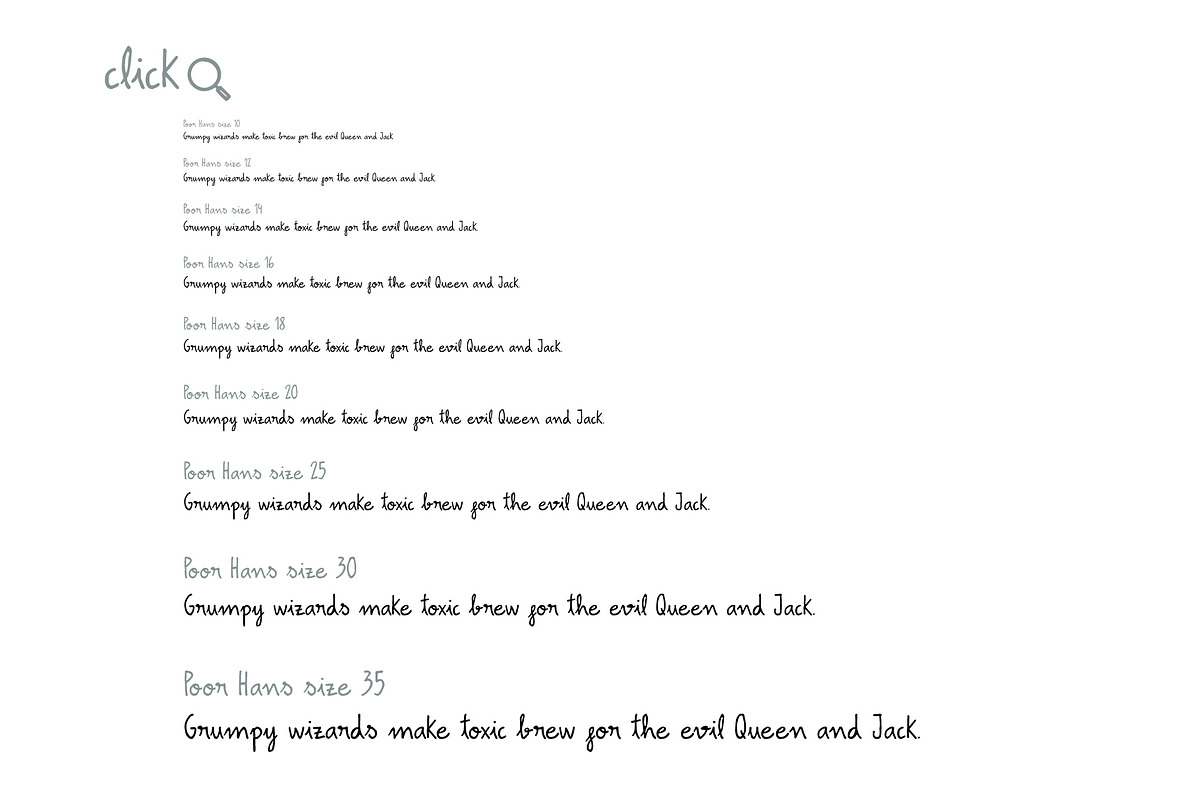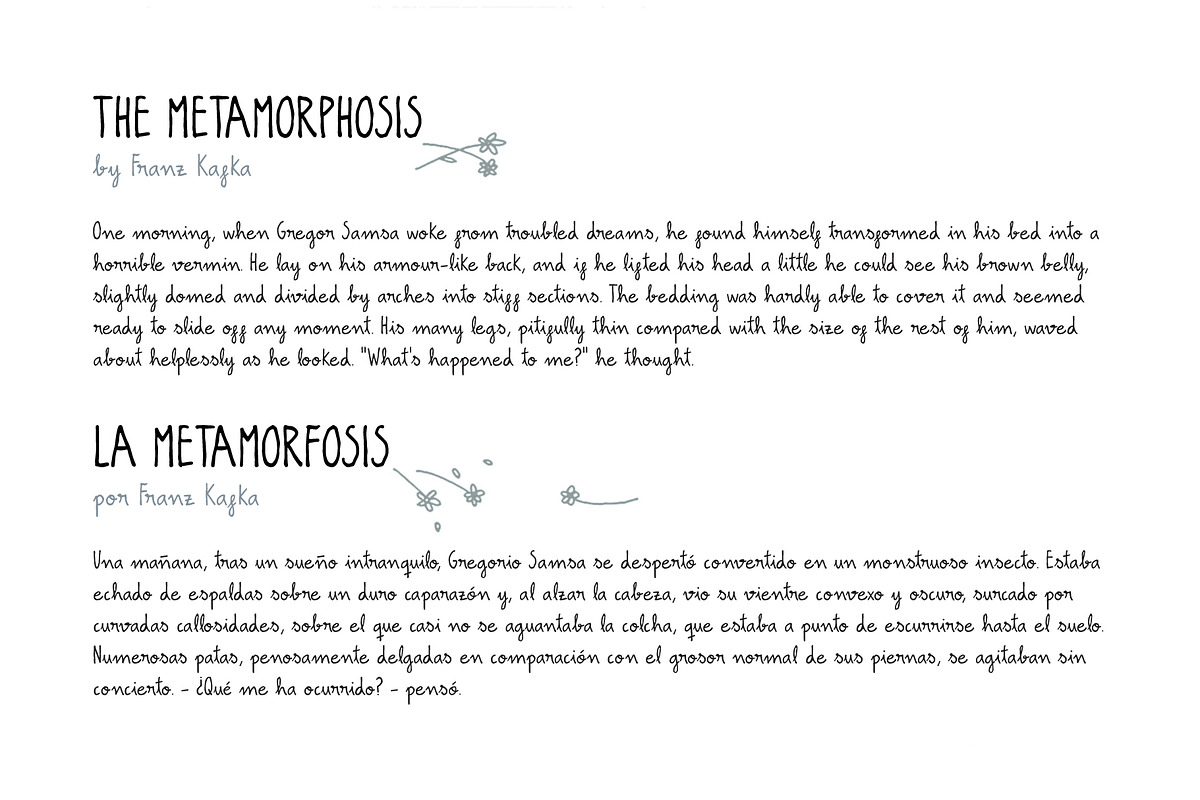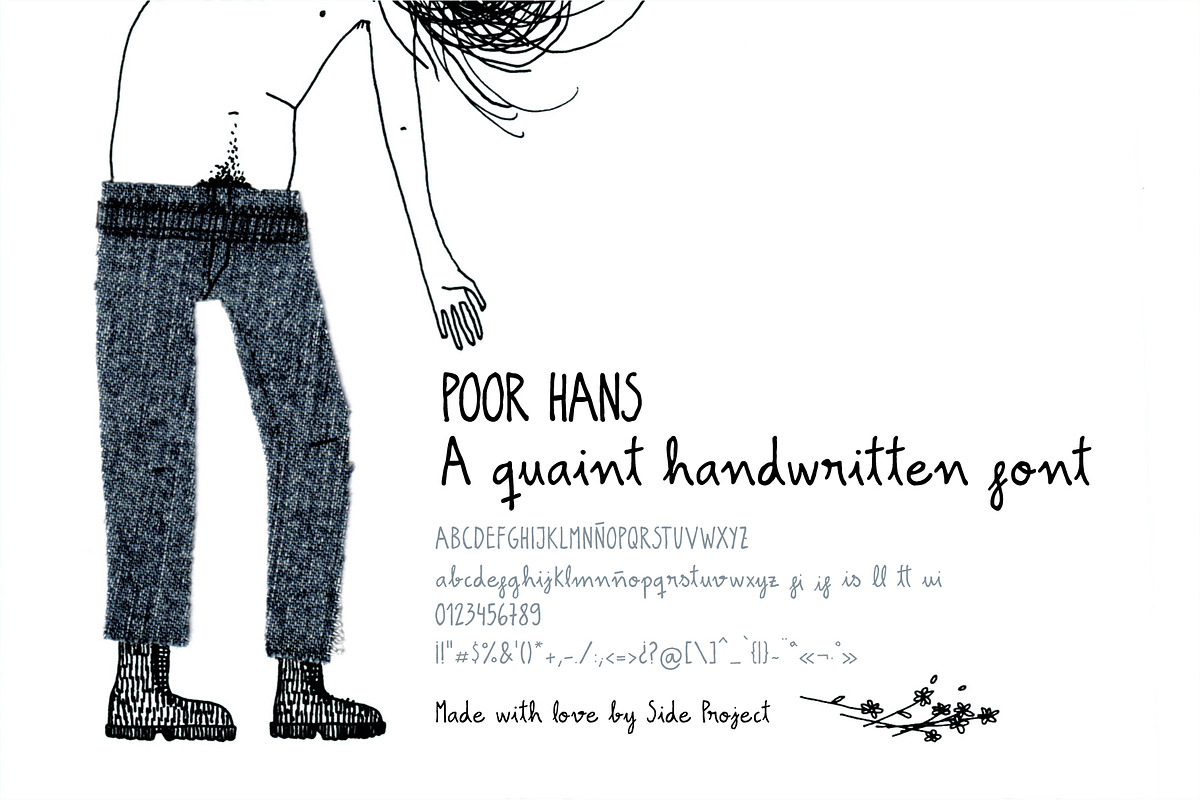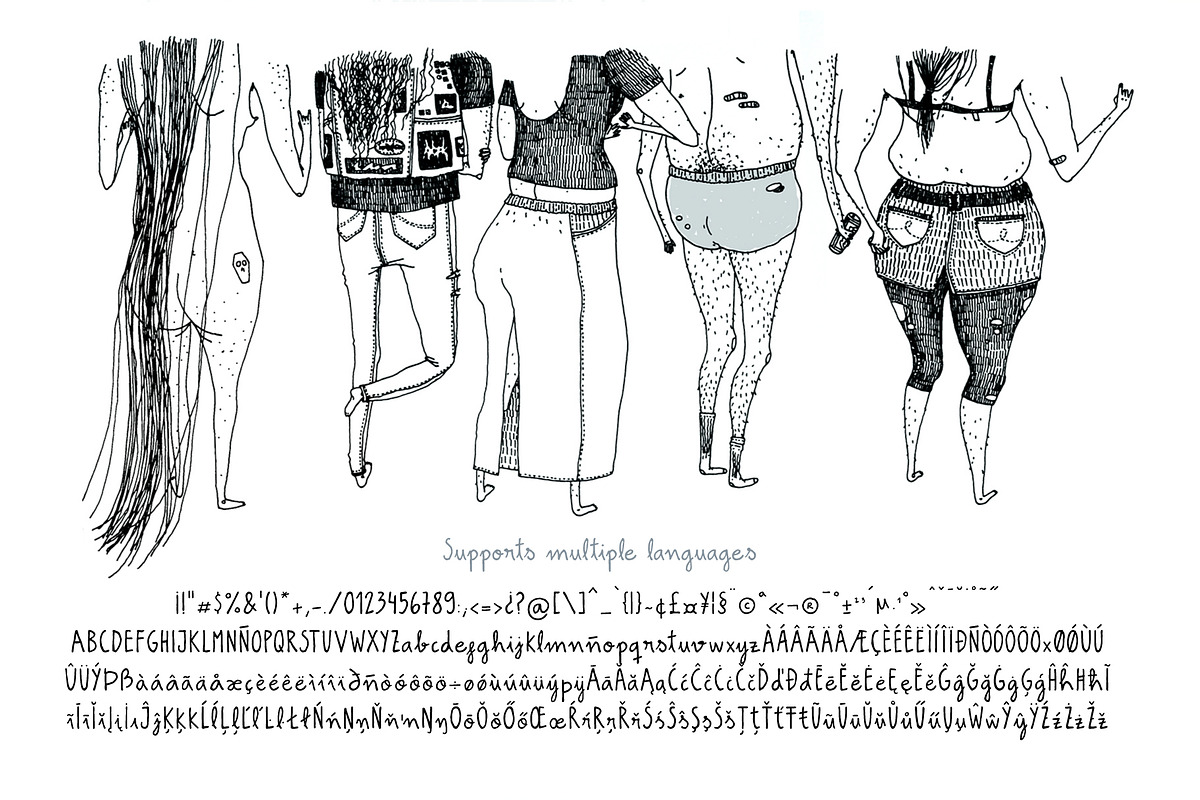
Poor Hans script handwritten font
Poor Hans script handwritten font by Side Project is a font selected for branding, posters, packaging, typography.
- With over 300 glyphs (which include: uppercase and lowercase letters, numbers, symbols, accented characters and a bunch of ligatures) this f
Why Poor Hans script handwritten font is worth a look
Poor Hans script handwritten font by Side Project fits naturally into Branding, posters, packaging, typography.